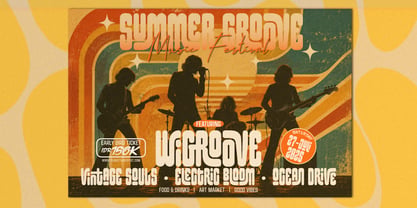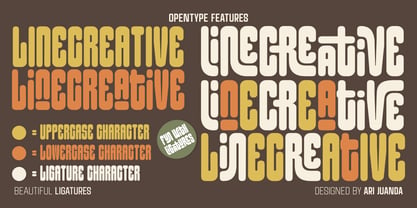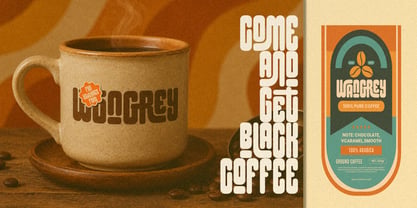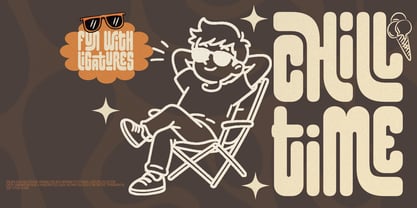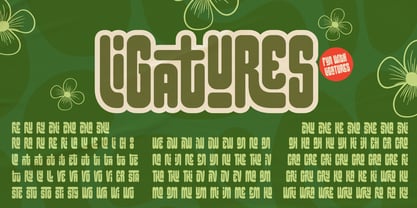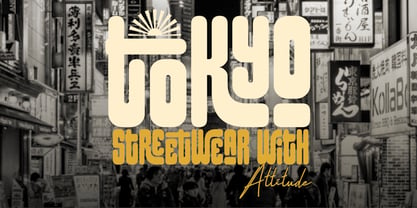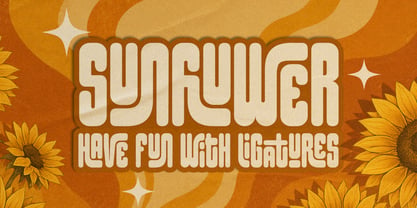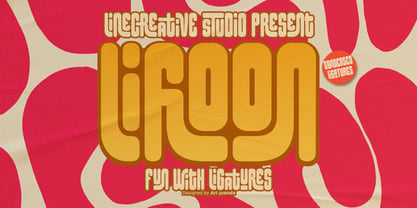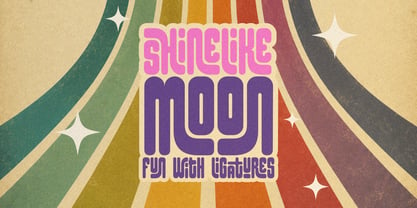
Lifloon
by Linecreative
The Lifloon Font Family was designed by Ari Juanda and published by Linecreative. Lifloon contains 1 styles. More about this family
Lifloonis a bold retro display font inspired by the timeless charm of vintage signage, classic packaging, and the vibrant typography of the 70s. Designed to make every headline stand out, Lifloon combines nostalgic character with a clean, modern finish—making it perfect for designers who want to create work that's both memorable and full of personality.
Turn ordinary words into unforgettable vintage typography with Lifloon
Designers: Ari Juanda
Foundry: Linecreative